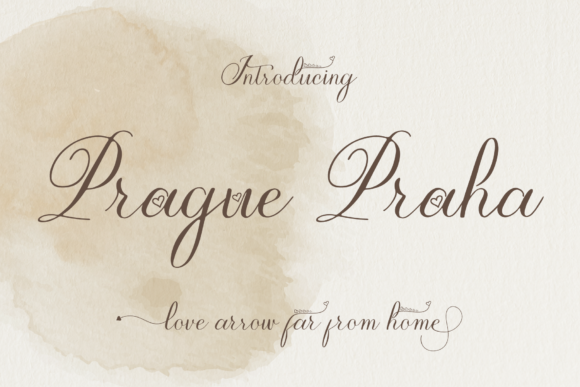
Step into the world of elegance and grace with Prague Praha, a captivating script font that will transform your designs into masterpieces. Its enchanting handwritten style adds a touch of intimacy and allure to every letter, making it the perfect choice for creating heartfelt poems and captivating stories.
With Prague Praha, your words will dance across the page, evoking emotions and leaving a lasting impression on your readers. Picture your poems adorned with Prague Praha's delicate curves and flowing strokes, each line a testament to your poetic prowess. The font's unique feel and stunning impact will elevate your creations, making them stand out from the mundane and ordinary.
Immerse yourself in the beauty of Prague Praha's glyphs and ligatures, easily accessible thanks to its PUA encoding. Unleash your creativity and explore endless possibilities, crafting designs that resonate with your soul and captivate your audience. Let Prague Praha be your muse, inspiring you to weave tales of love, loss, and longing that will touch hearts and ignite imaginations.
Whether you're a seasoned poet seeking to share your passion or a budding writer yearning to leave your mark on the world, Prague Praha is your perfect companion. Its versatility extends beyond poetry, making it ideal for wedding invitations, greeting cards, branding, and any project where a touch of elegance is desired.
Don't settle for ordinary fonts that blend into the background. Choose Prague Praha and let your words shine, captivating your readers with its charm and sophistication. Discover the magic of Prague Praha today and unlock a world of creative possibilities.